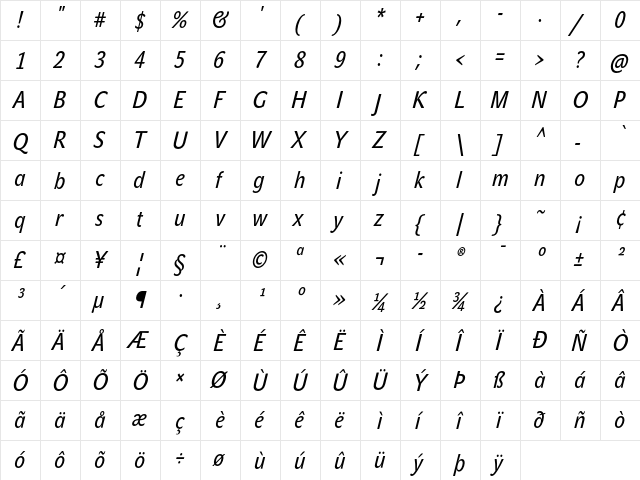
JohnSansCond Text Pro Italic Font Preview
Design Context for JohnSansCond Text Pro Typeface
JohnSansCond Text Pro offers clean, dependable letterforms without strong stylistic allegiance, making it a practical choice for designers who need flexibility. The dynamic lean of this cut emphasises speed and emphasis in any layout. The condensed width makes it efficient for tight spaces without sacrificing legibility.
Pro Tip: Try JohnSansCond Text Pro for annotation and caption copy alongside an upright companion — the contrast in angle creates a dynamic but ordered typographic system.